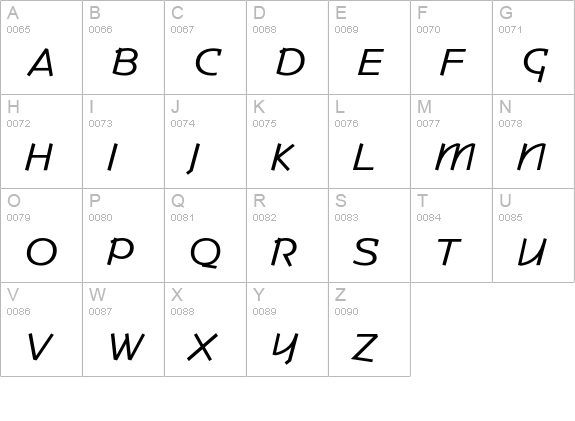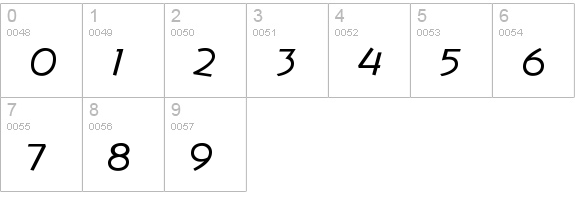
CommerceLean font is a sleek and modern typeface that exudes sophistication and professionalism. With its clean lines and minimalistic design, this font is perfect for a wide range of design projects, from logos to branding materials to website headers. The slim and elegant letterforms of CommerceLean font add a touch of finesse to any text, making it stand out and grab the viewer's attention. What makes CommerceLean font even more appealing is that it is available for free download at FontsMarket.com. This means that you can easily access this stylish font to enhance your projects without any cost. Whether you are a designer looking for a versatile typeface or a business owner wanting to elevate your brand's visual identity, CommerceLean font is a fantastic choice that won't break the bank. Download it today and see how it can elevate your designs to the next level.